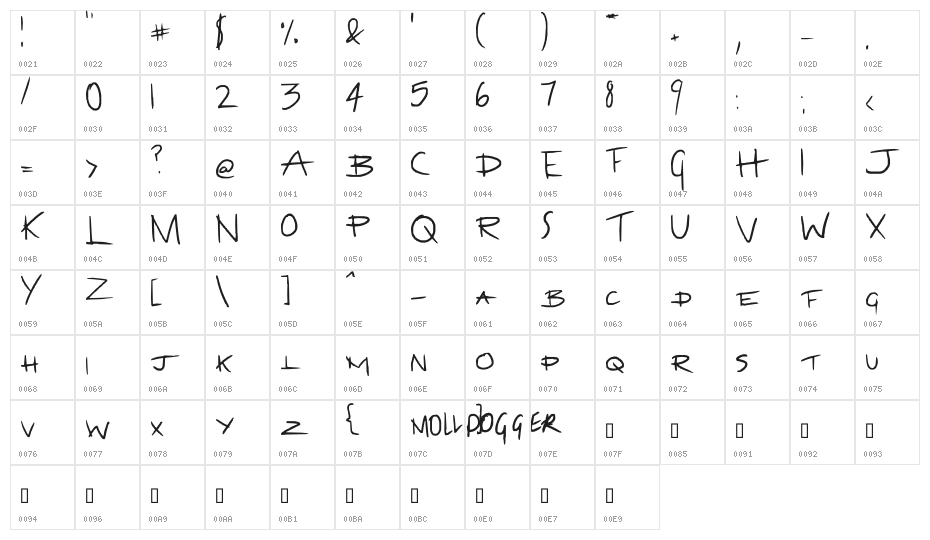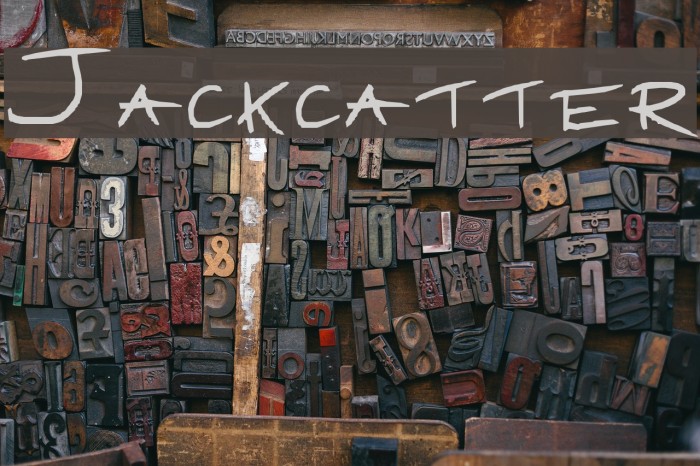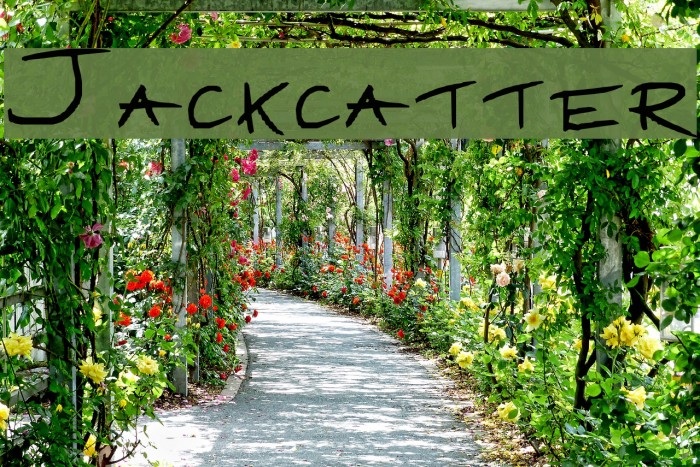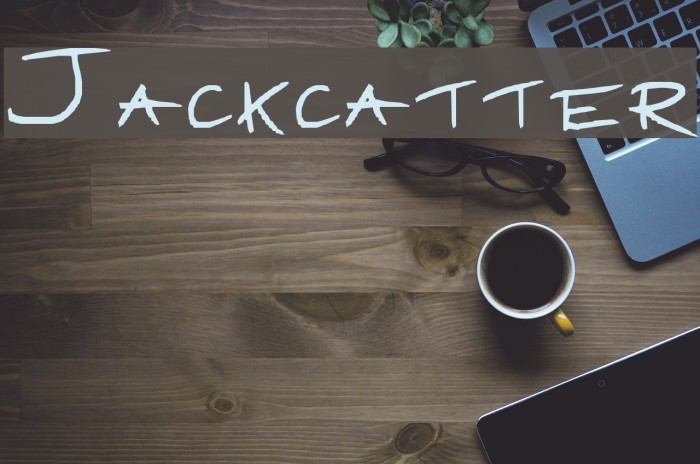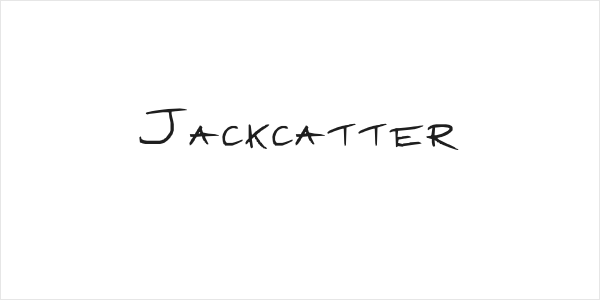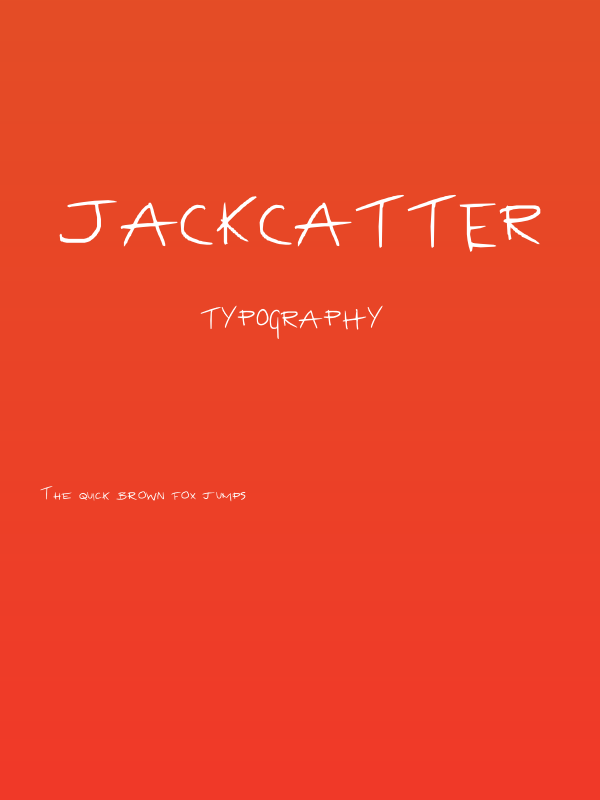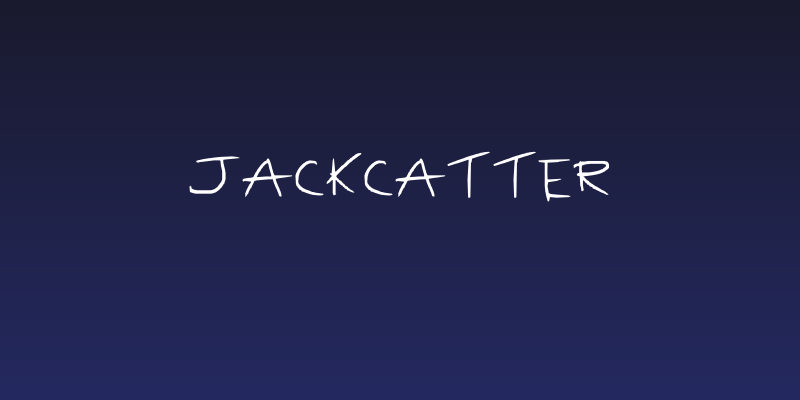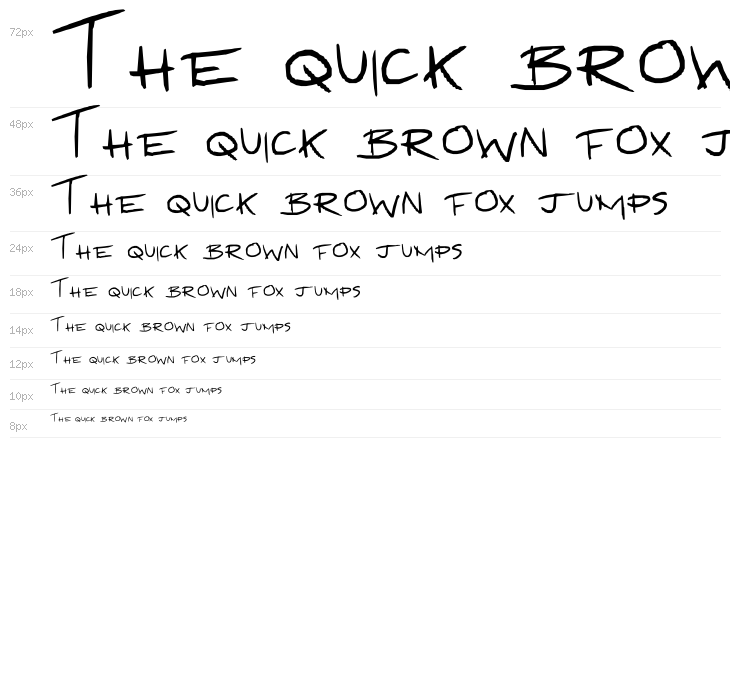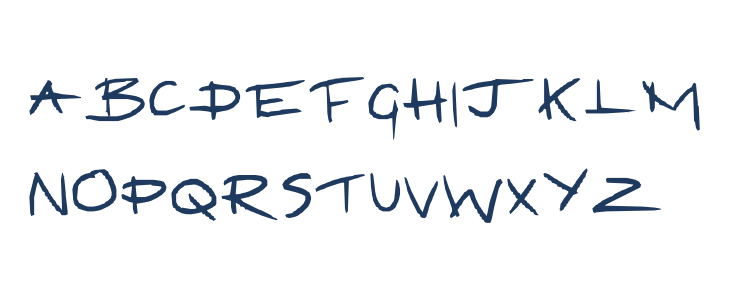
Jackcatter Font
Jackcatter Description
This font exhibits a playful and casual handwritten style, characterized by its irregular and spontaneous letterforms. The strokes are uneven, giving it a dynamic and lively appearance. The uppercase and lowercase letters maintain a consistent flow, while the numerals and special characters complement the overall informal aesthetic. The font's organic feel makes it suitable for projects that require a personal touch, such as invitations, greeting cards, or creative branding. Its unique style captures attention while remaining legible, making it versatile for various design applications.
| Proposed Projects | Ideal for invitations, greeting cards, creative branding, and personal projects. |